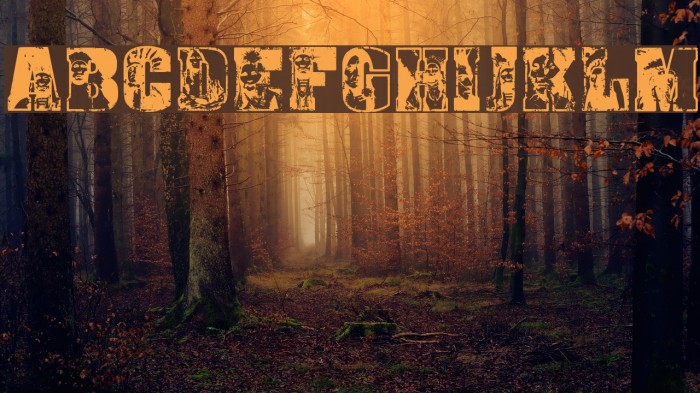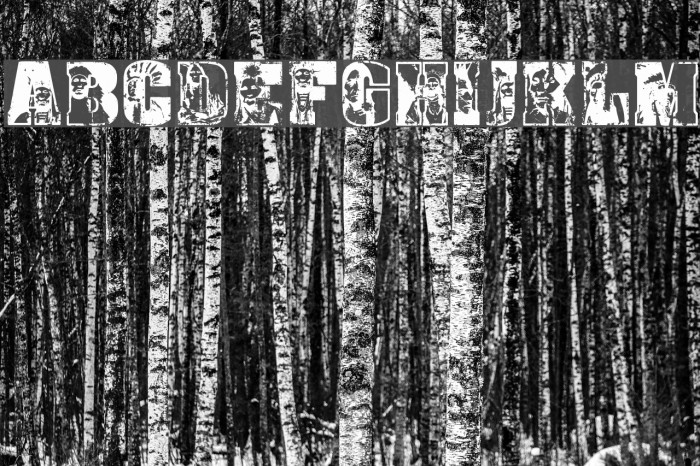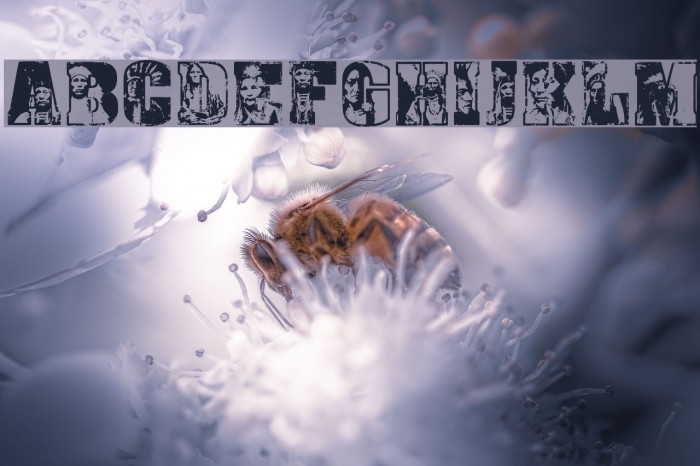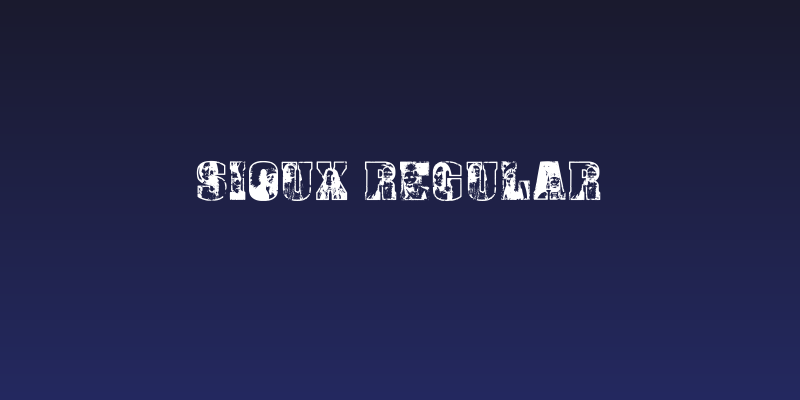
Sioux Regular Font
This font features a bold and decorative style with intricate details embedded within each letter. The uppercase letters are filled with historical imagery, giving it a unique and artistic appearance. The design is reminiscent of vintage posters or themed events, where each character tells a story through its embedded visuals. The font is highly stylized, making it suitable for projects that require a strong visual impact. Its distinct look captures attention and conveys a sense of history and culture.
A bold, decorative font with historical imagery embedded in each letter.
- Proposed Projects: Ideal for themed posters, historical event promotions, artistic projects, and unique branding materials.
- Overall Style: Vintage